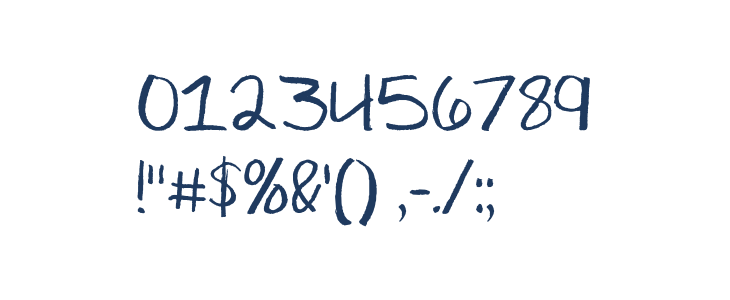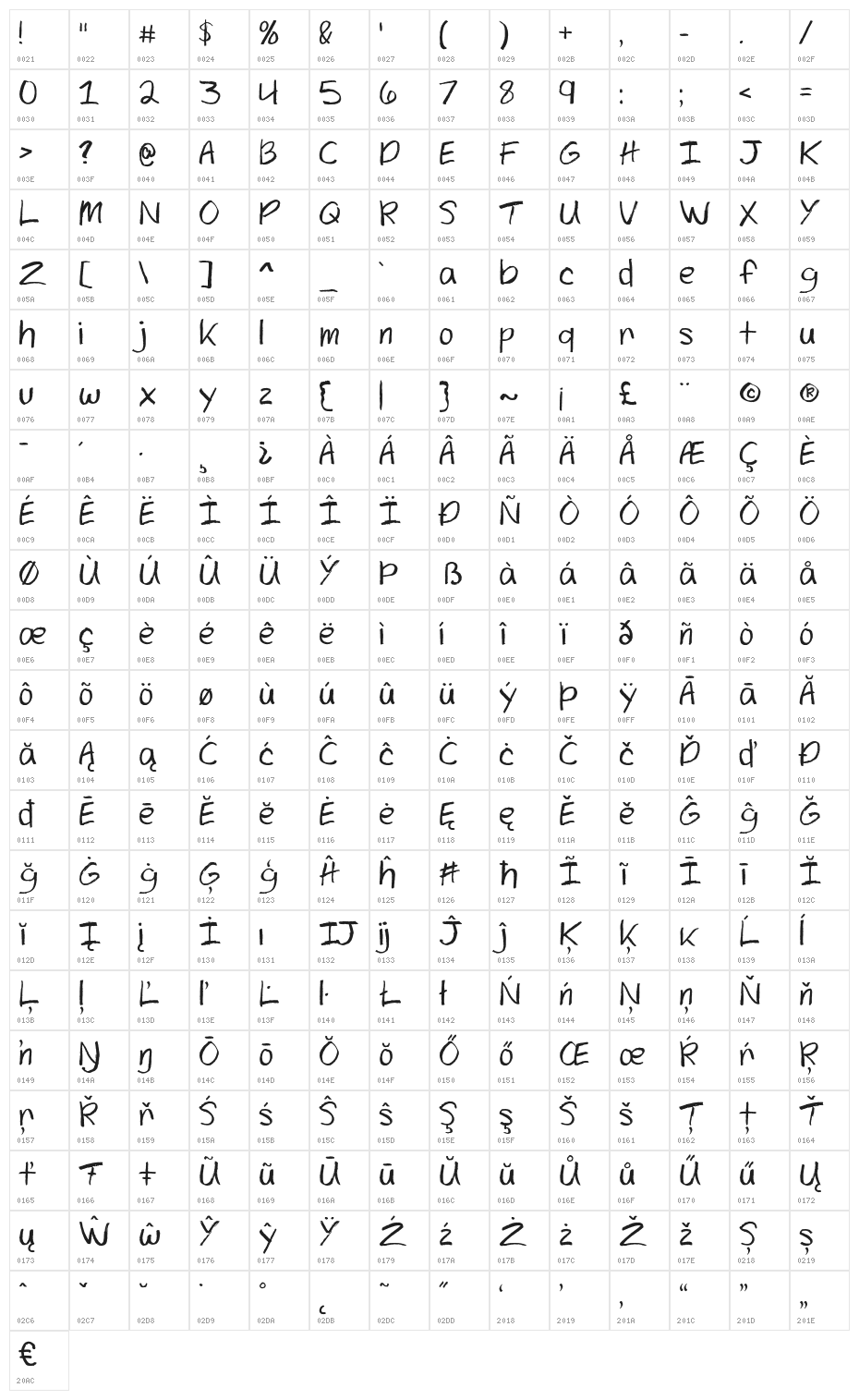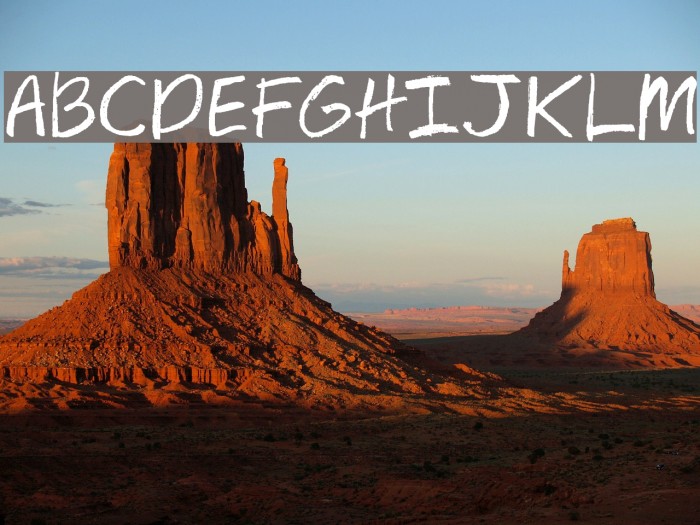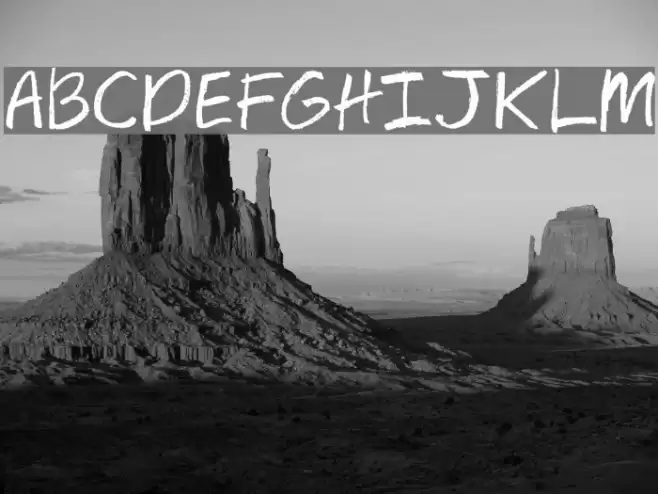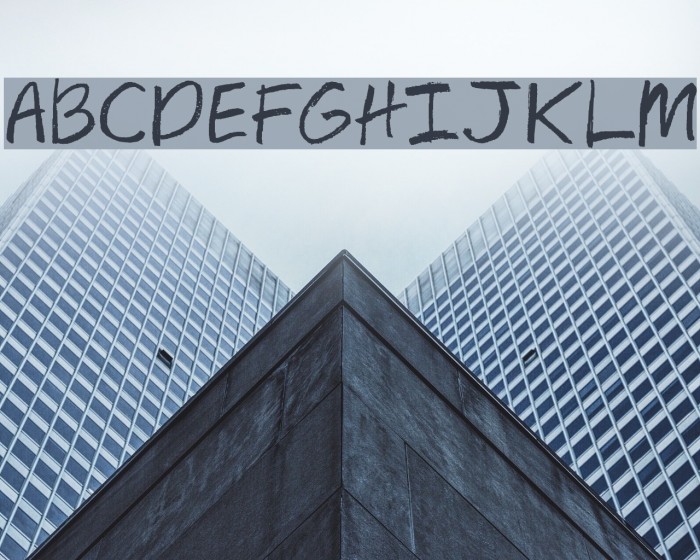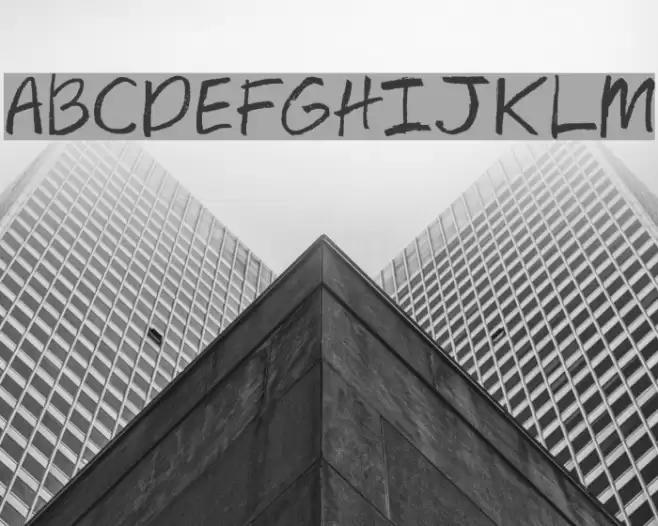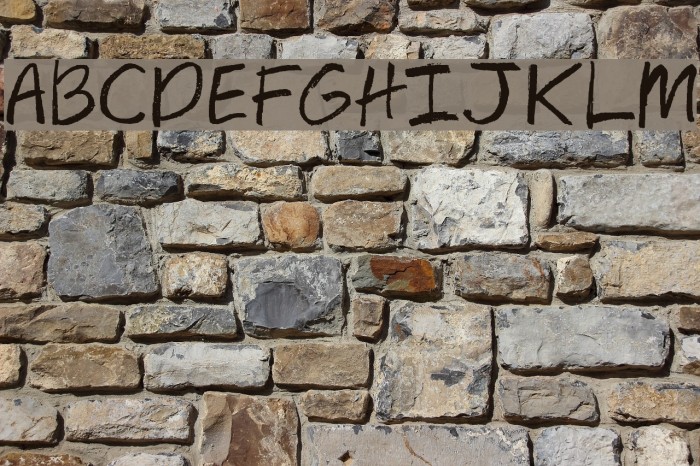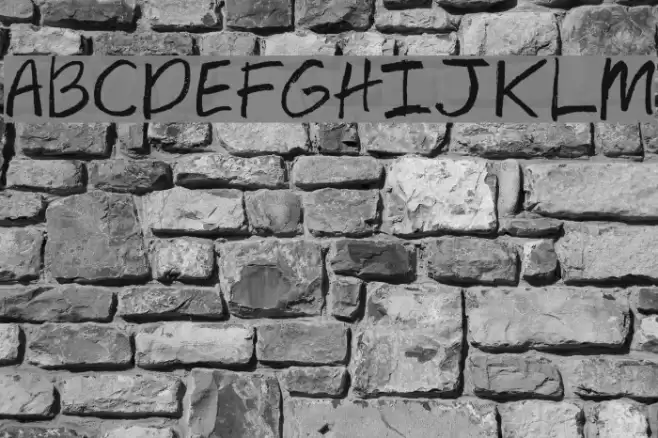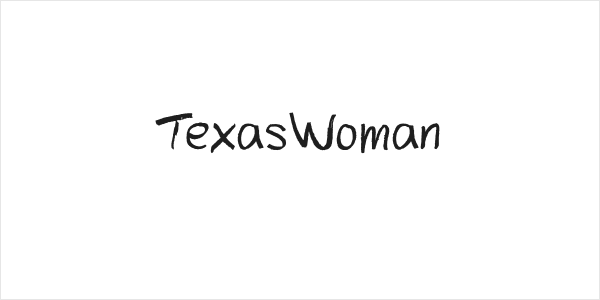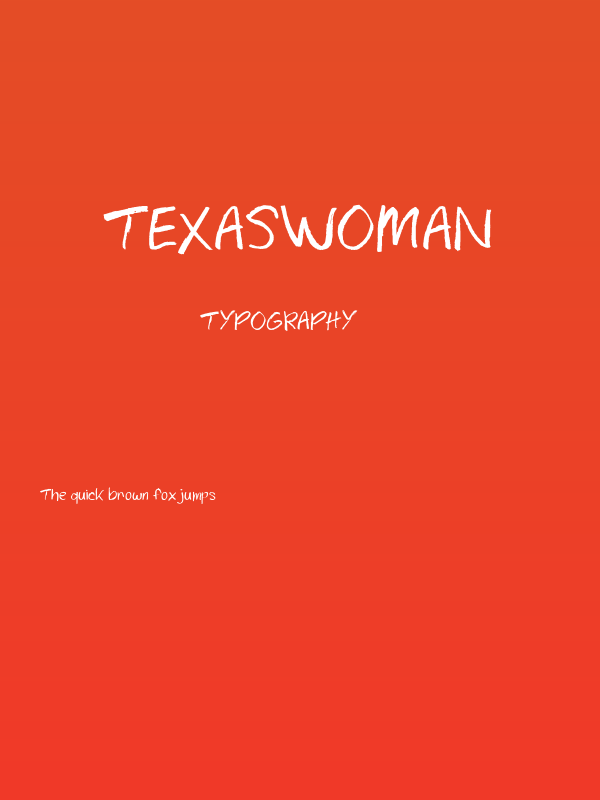
TexasWoman Font
TexasWoman Description
This font features a casual, handwritten style with a playful and informal appearance. The letters are slightly uneven, mimicking the natural flow of handwriting. The strokes are bold and consistent, providing a clear and legible look. The uppercase and lowercase letters maintain a cohesive style, with rounded edges and a slight slant that adds to the relaxed feel. Numbers and special characters are designed to match the overall aesthetic, ensuring uniformity across all elements. This font is ideal for projects that require a personal touch or a friendly, approachable vibe.
| Proposed Projects | Ideal for greeting cards, personal blogs, informal invitations, and children's book covers. |